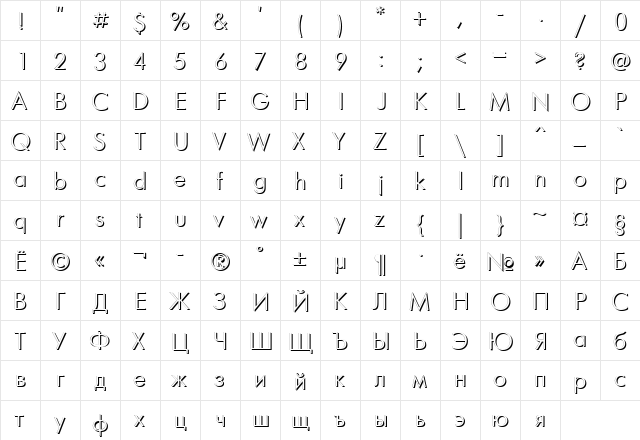
FuturaFuturisShadowC Regular
Design Context for FuturaFuturisShadowC Typeface
FuturaFuturisShadowC has a distinctly futuristic character, with geometric precision and clean angles that feel at home in technology, gaming, and sci-fi contexts.
Pro Tip: Use FuturaFuturisShadowC in combination with a neutral sans for body text. Let it define the brand voice in headlines while keeping reading comfortable elsewhere.